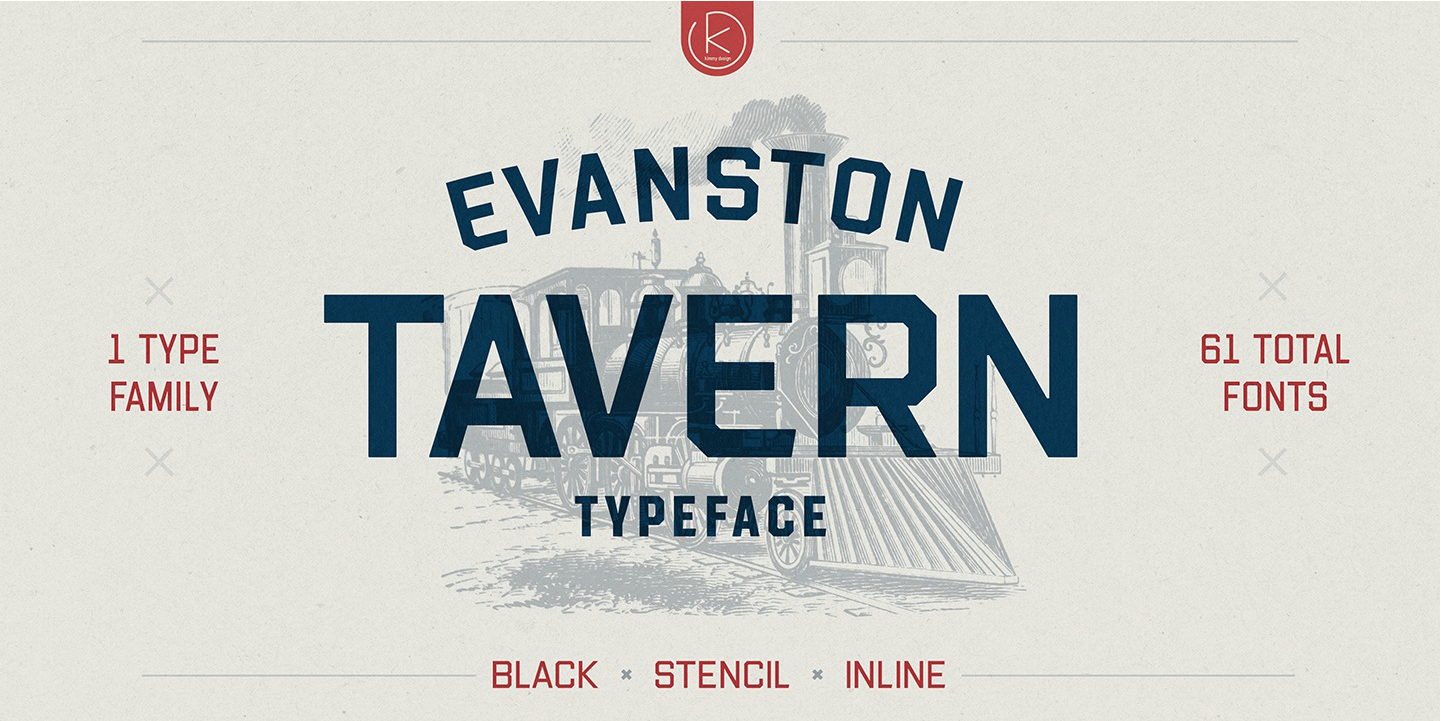
The Evanston Tavern Font is perfect for restaurant menus, pub signage, craft beer branding, vintage poster designs, logo creation, headline typography, rustic wedding invitations, and artisanal product packaging. This versatile typeface works exceptionally well for businesses in the hospitality industry, breweries, distilleries, and any brand seeking to convey a warm, welcoming atmosphere.
What makes Evanston Tavern Font so exciting is its authentic vintage charm that perfectly captures the essence of classic American taverns and speakeasies. The font features hand-crafted letterforms with subtle imperfections that give it character and personality, making your designs stand out from generic, sterile typography. Its weathered appearance tells a story, evoking memories of cozy neighborhood bars and timeless gathering places where friends share stories over drinks.
The Evanston Tavern Font family includes multiple weights and styles: Regular, Bold, Light, Italic, Bold Italic, Condensed, and Extended versions. Additionally, it comes with decorative elements, ornamental borders, and vintage-inspired dingbats that complement the main typeface perfectly. These variations allow designers to create cohesive brand identities while maintaining visual hierarchy and readability across different applications.
When you choose Evanston Tavern Font Free Download, you're investing in a typeface that brings authenticity to your creative projects. This font seamlessly blends nostalgia with modern design sensibilities, making it ideal for both traditional and contemporary applications. The carefully crafted letterforms ensure excellent readability at both large display sizes and smaller text applications, while the distinctive character shapes create memorable brand experiences.
Whether you're designing for a craft brewery, creating vintage-inspired marketing materials, or developing a brand identity for a hospitality business, this font delivers the perfect balance of rustic charm and professional polish. The Evanston Tavern Font transforms ordinary text into compelling visual statements that capture attention and communicate your brand's personality effectively.